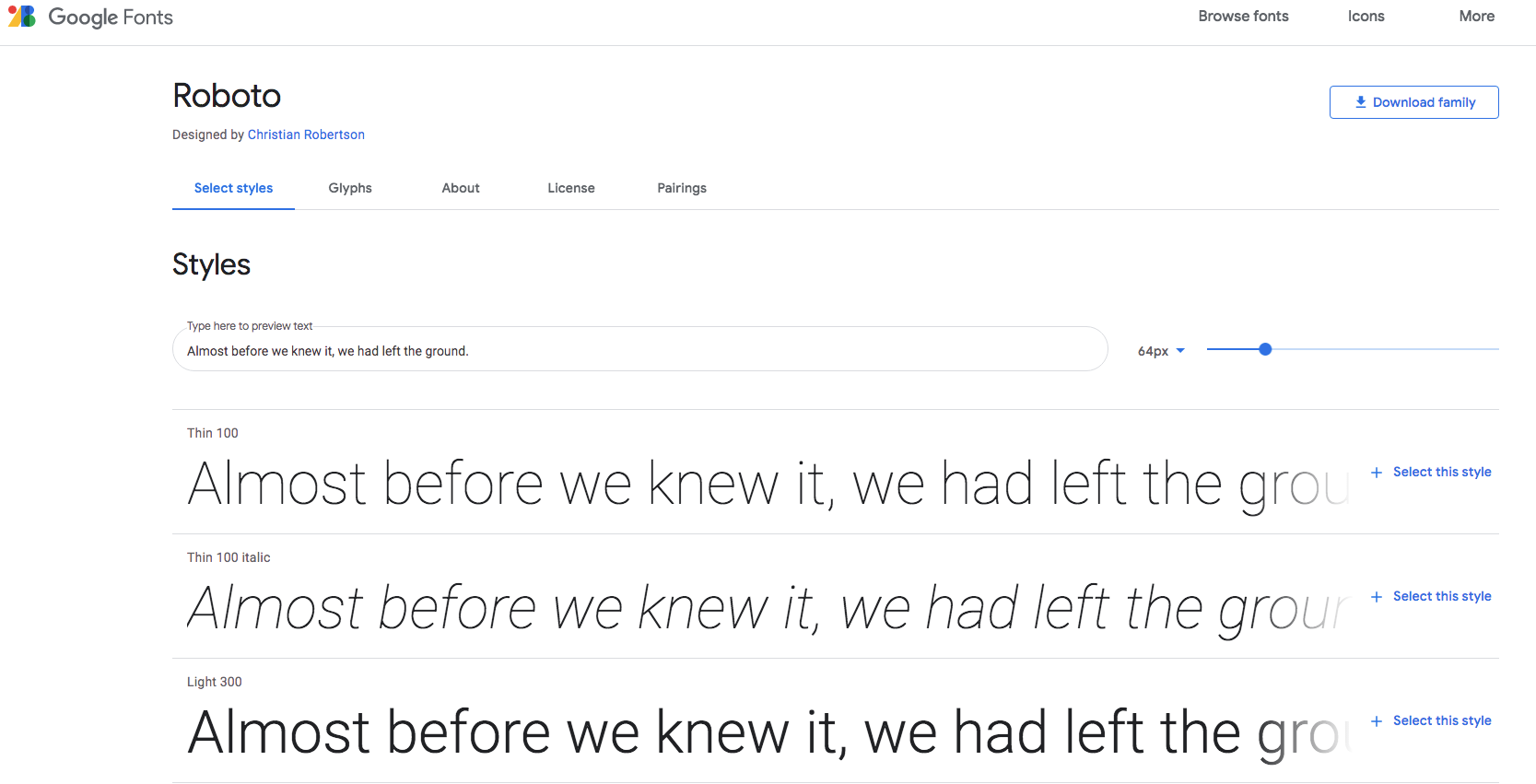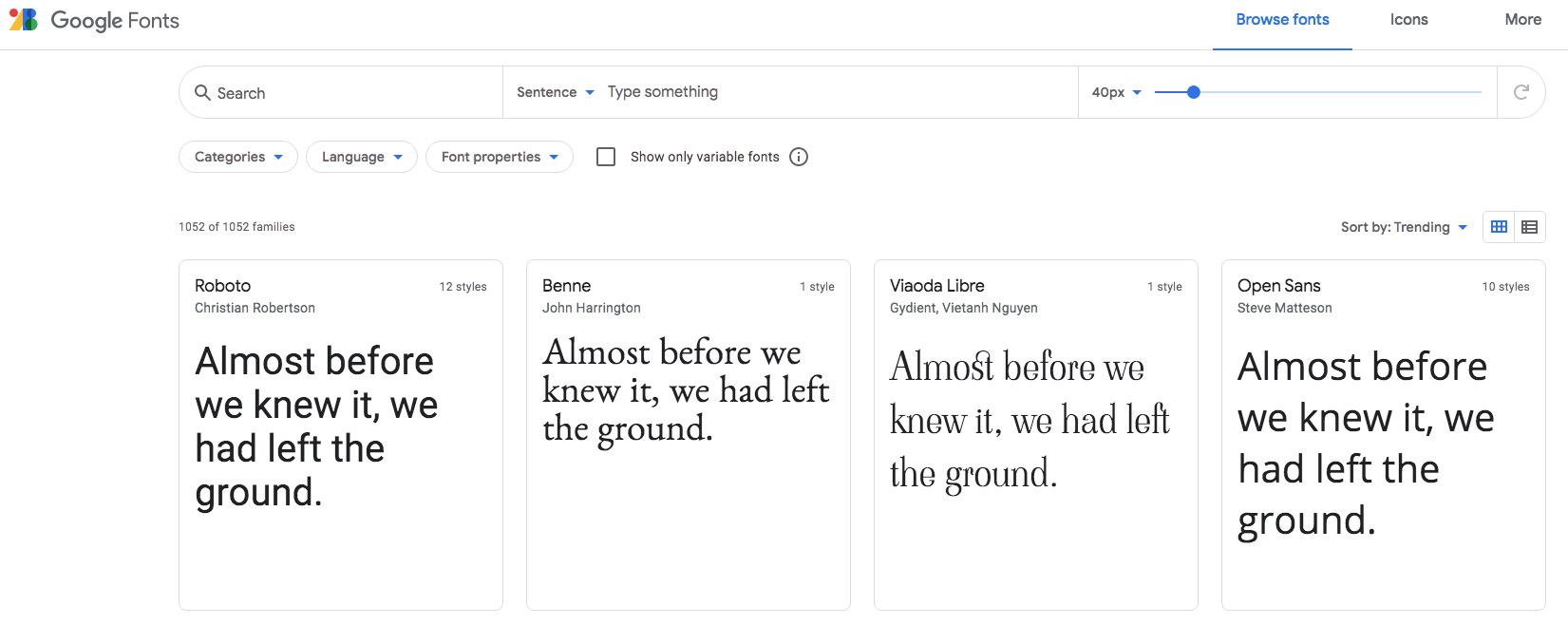
Google Fonts, Typeface Solution for Web Designs
Typeface resource is one of the most important materials for designers. Google Fonts gives you practical, cheap, convenient options of fonts and icons for various projects. Whether you are a beginner or an expert designer, you need varieties of fonts to create a modern, lively, legible look.
Google Fonts as Typeface Resource
Getting creative with your font options helps to make your design fresh and modern. Google Fonts helps designers by providing numerous web fonts. Open the website, and you will immediately see blocks of font categories, complete with examples in sentences.
Despite the name, Google Fonts also provides icons available for various tasks and symbols. The designs are compatible with various platforms, enabling web or app designers to create various styles and designs. You can also use them to create compelling presentation slides.
The simple interface makes this web-based resource easy to explore. Choose fonts based on thickness, width, number of styles, and many more.
Features of Google Fonts
Google Fonts offers various convenient features to support designers and app makers without a complicated interface. The main features include:
1. Web-friendly Typefaces
Google Fonts features web-friendly, cross-device typefaces that consist of all main fonts: serif, sans serif, script, and artsy. Each typeface offers various styles you can modify for your design. Open the Google Fonts website, and you will immediately see large blocks with the featured typeface and examples in sentences.
2. Multilingual Support
The typefaces are available in various languages. You can check the language compatibility by using the explore menu above the typeface blocks. Choose the “Language” category to see which typeface is compatible with your chosen language.
3. Numerous, Diverse Icons
Need icons that are neat, well-drawn, and clean, but still look stylish and modern? Google Fonts also offers icons for various purposes. The icons are available in five styles: Outlined, Filled, Rounded, Sharp, and Two Tones. They feature functions for writing, blogging, connecting to social media, sending emails, editing posts, shopping, and many more.
Why Using Google Fonts?
Google Fonts is a perfect design resource if you emphasize function, clarity, readability, and practical aspects. All the typefaces are web-friendly despite their diverse styles and forms. You can use them to create designs and apps for various devices, such as Windows, Mac, iOS, Android, and many more.
Google Fonts feature fresh styles created by various illustrators and font designers. Forget the typical look of default fonts; you can experiment with a fresh look in your design or app without losing readability. You can also use these fonts to design slide templates and create interesting presentation slides.
What about the icons? All of them are free, and perfect for beginner web designers and app makers. The icons’ clean and neat designs help you create the best user experiences. Web visitors and app makers can easily navigate your works.
Modern web and app designs need fresh, stylish elements for their visuals. Use Google Fonts as your affordable, convenient resource for modern fonts and icons.